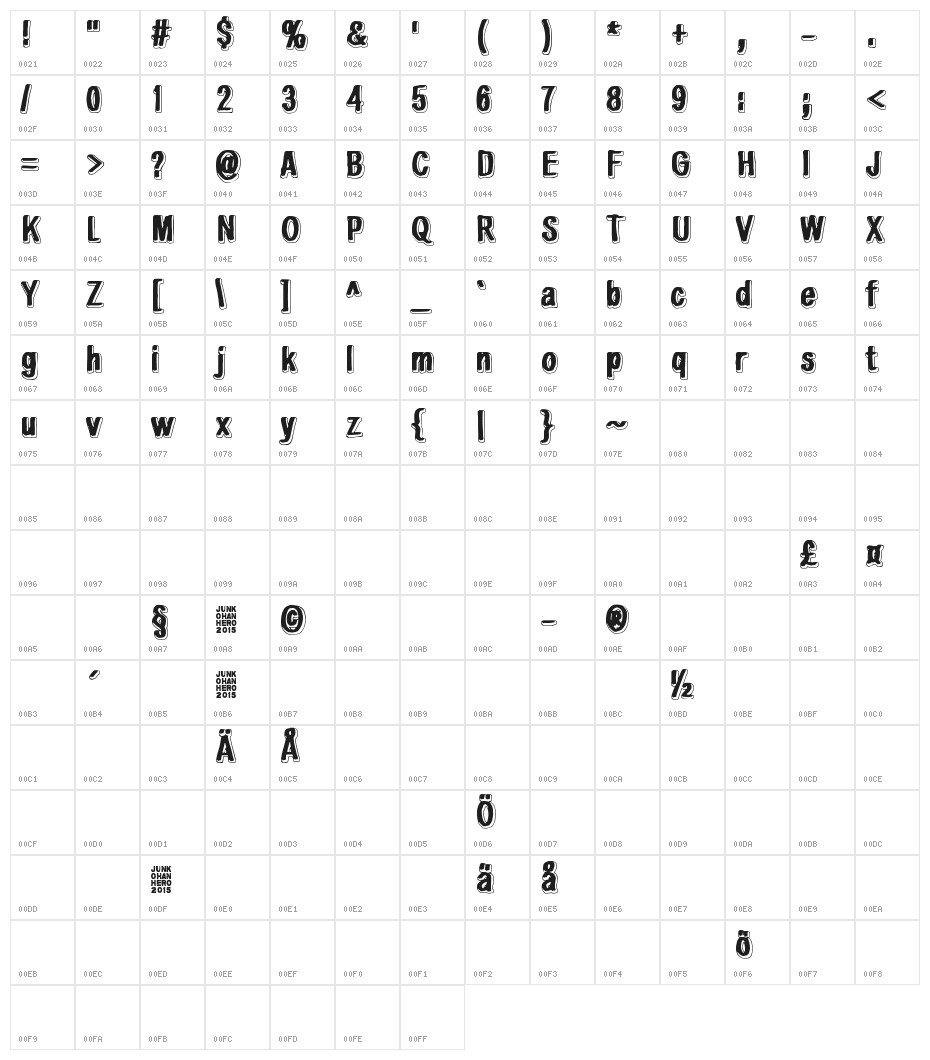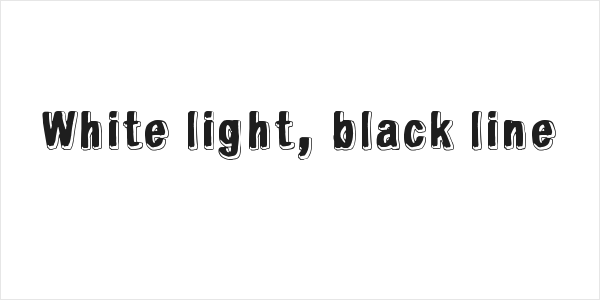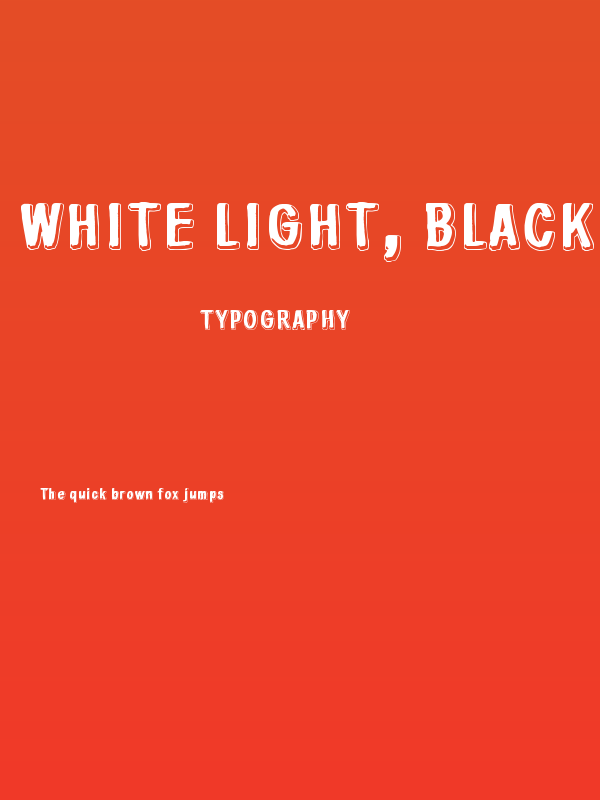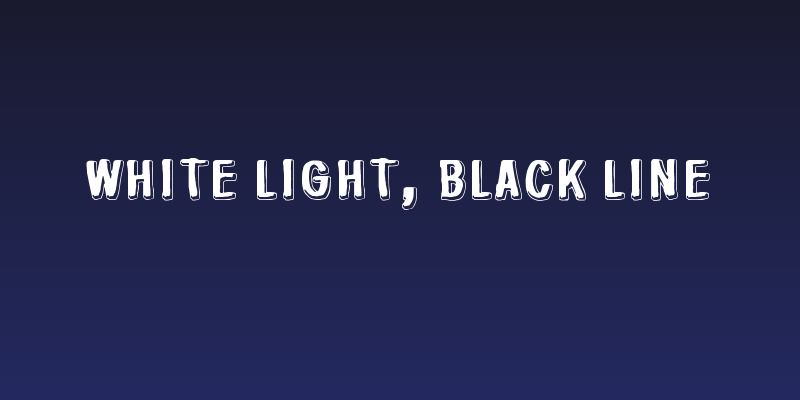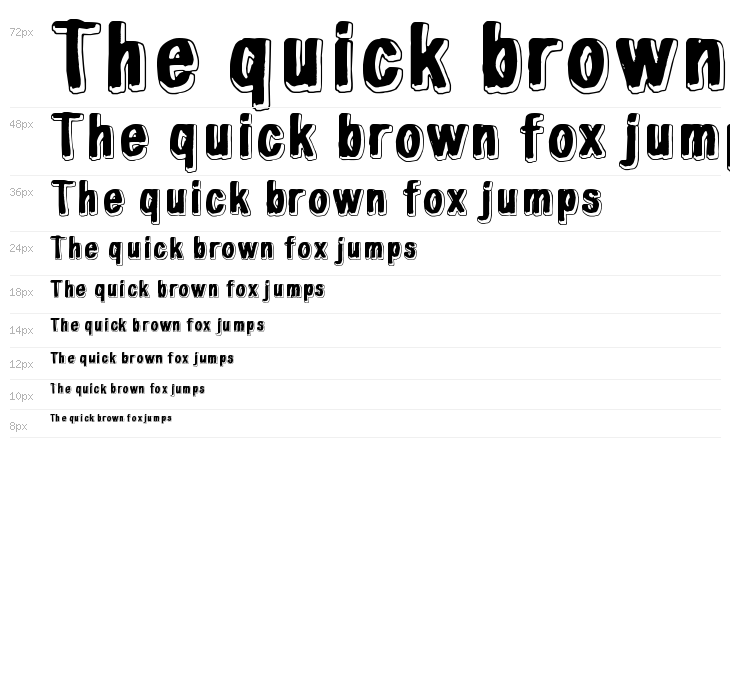
White light, black line Font
White light, black line Description
This font features a bold, playful style with a distinct outline that gives each character a three-dimensional appearance. The letters are uppercase and lowercase, with numbers and a variety of special characters. The design is reminiscent of hand-drawn or cartoon lettering, with a thick black outline surrounding a white interior, creating a striking contrast. The characters have a slightly irregular shape, adding to the whimsical and informal feel. This font is highly decorative and eye-catching, making it suitable for creative and fun projects.
| Overall Style | Playful, Cartoonish, Decorative |
| Proposed Projects | Ideal for children's book covers, comic titles, playful branding, and posters. |